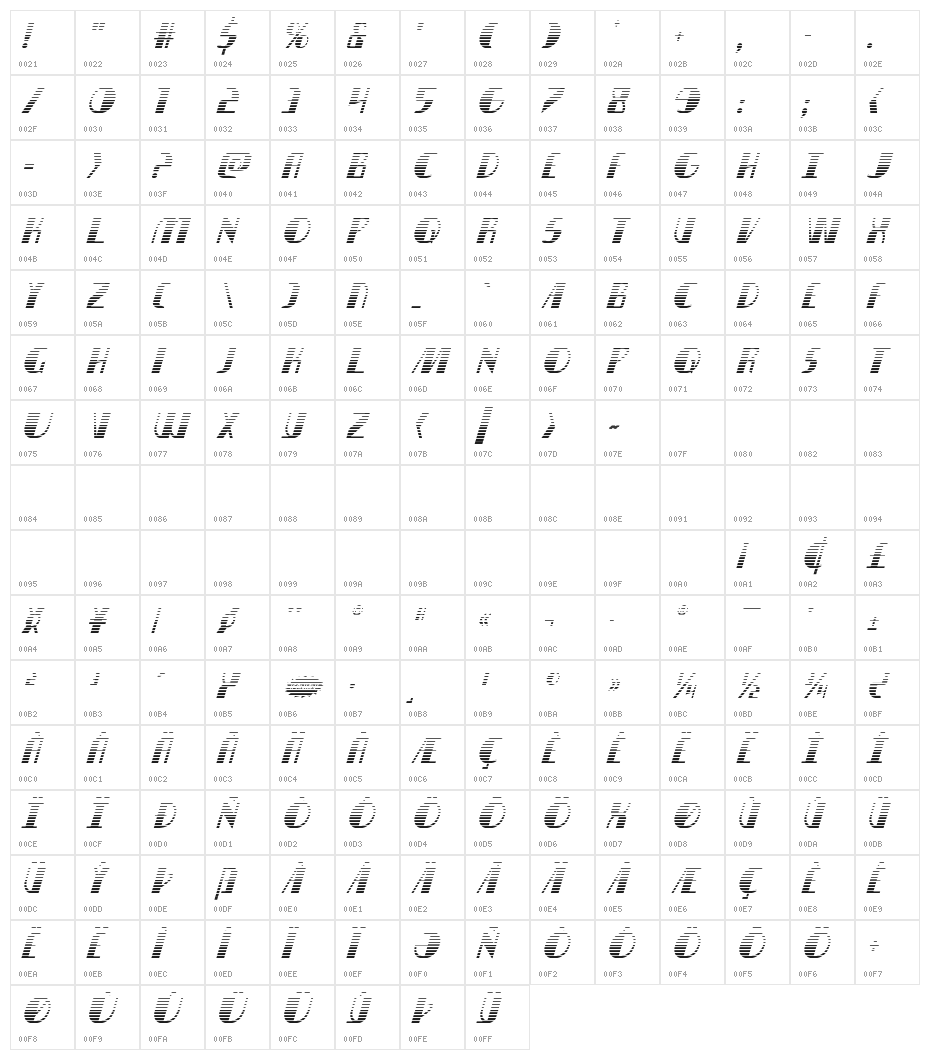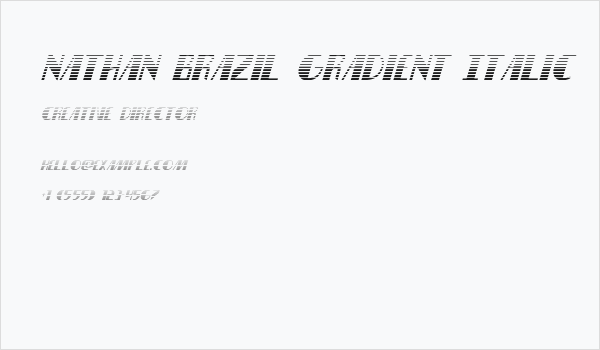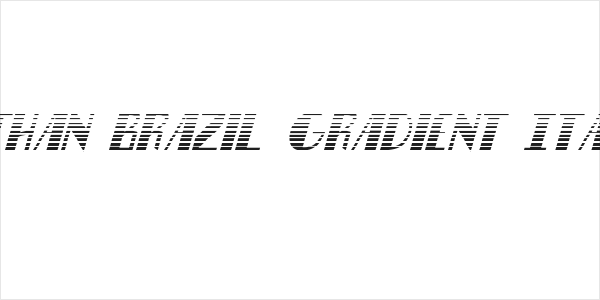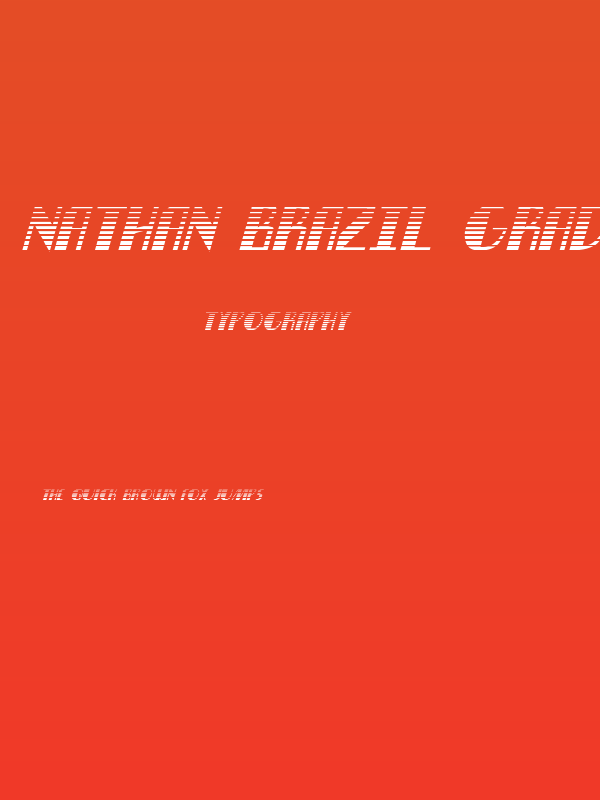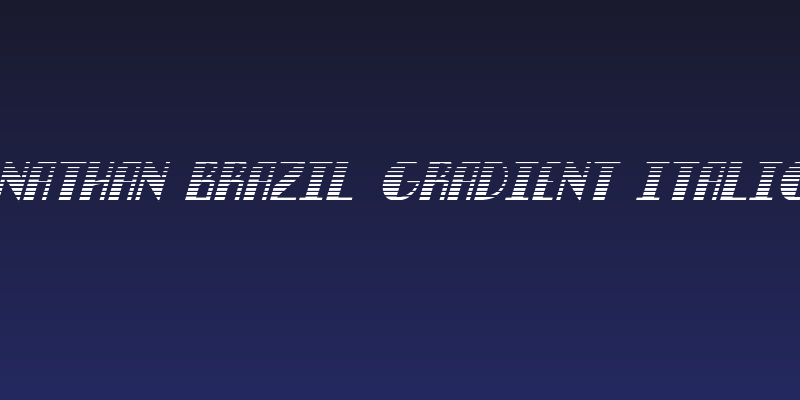
Nathan Brazil Gradient Italic Font
Nathan Brazil Gradient Italic Description
This font features a unique gradient effect with horizontal lines creating a dynamic and modern appearance. The italicized style adds a sense of motion and speed, making it ideal for contemporary designs. Each character is composed of parallel lines that vary in thickness, contributing to a striking visual impact. The font maintains a consistent slant across all characters, enhancing its cohesive look. Its bold and distinctive style is perfect for making a statement in any design project.
| Proposed Projects | Ideal for sports branding, futuristic designs, posters, and digital media where a bold, modern look is desired. |